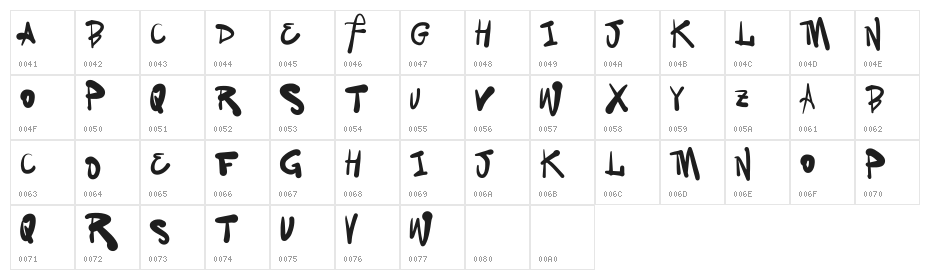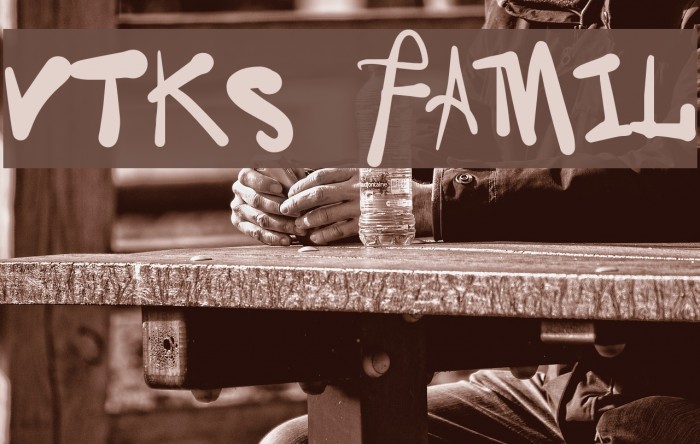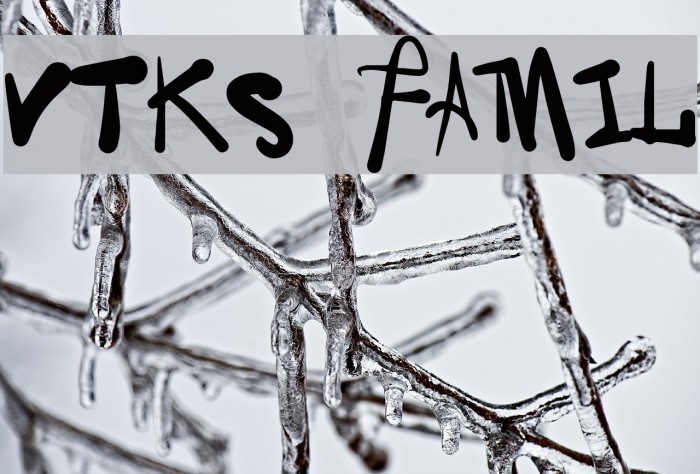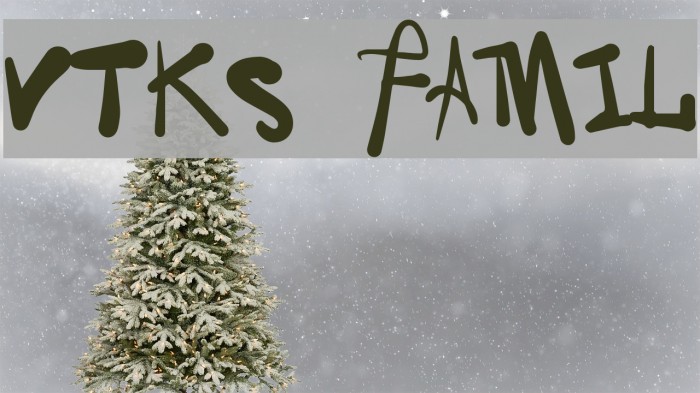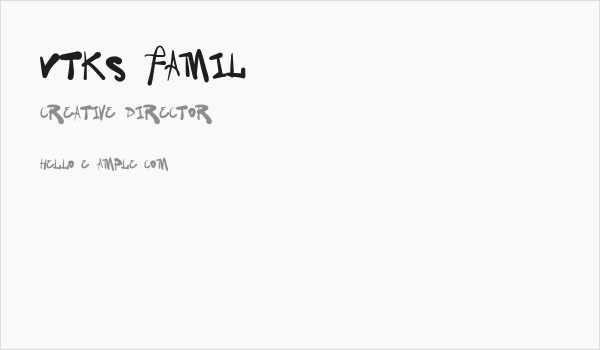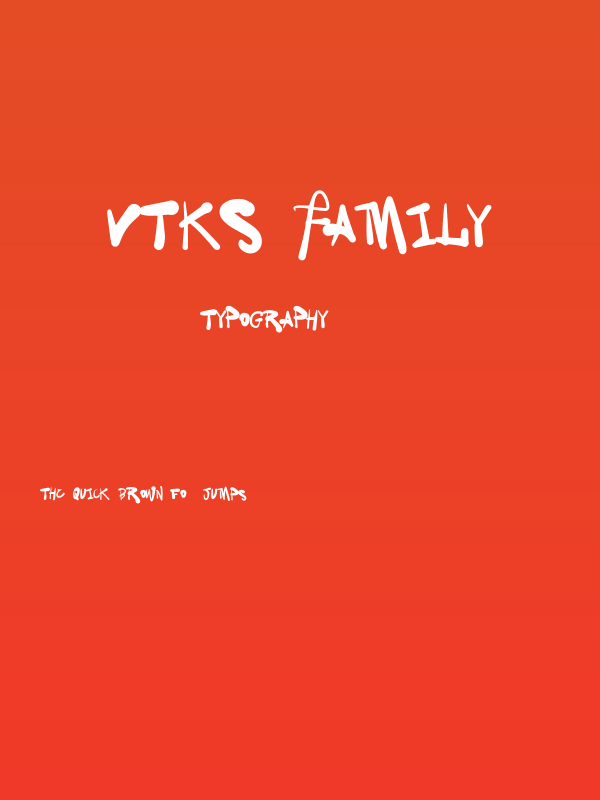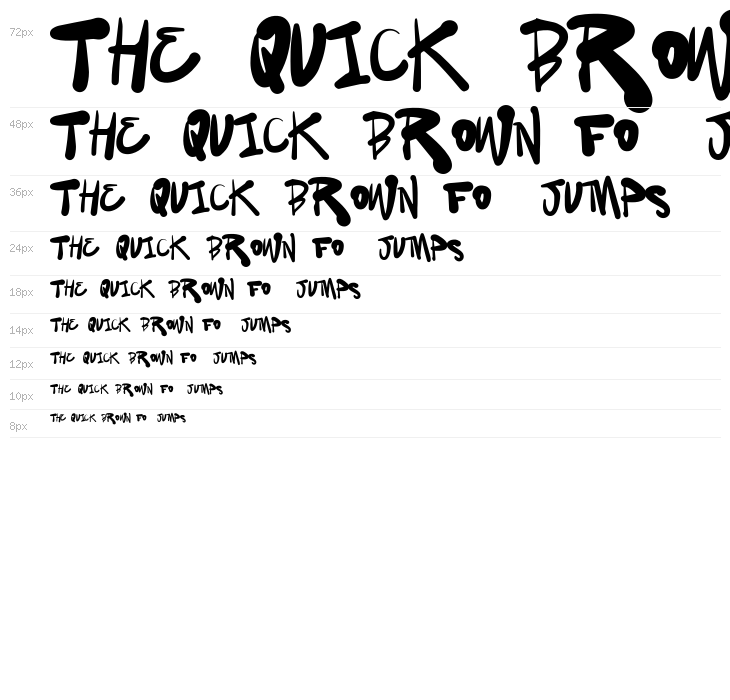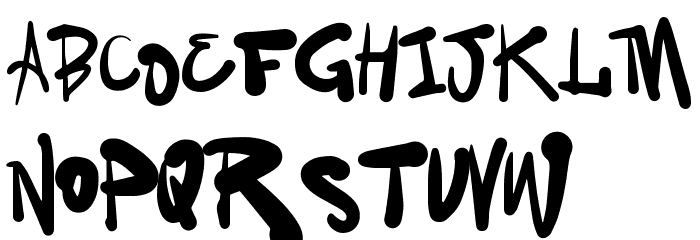
Vtks Family Font
Vtks Family Description
This font features a bold and dynamic style with a handwritten appearance. The letters are characterized by their irregular shapes and playful curves, giving it a lively and energetic feel. The uppercase letters are particularly bold, with some letters having exaggerated strokes that add to the font's unique personality. The lowercase letters maintain the same playful style, with a slightly more condensed form. The overall design is informal and artistic, making it suitable for creative projects that require a personal touch. The font's distinctive style is enhanced by its high contrast in stroke thickness, which adds depth and visual interest.
| Proposed Projects | Ideal for creative projects such as posters, invitations, and branding materials that require a personal and artistic touch. |